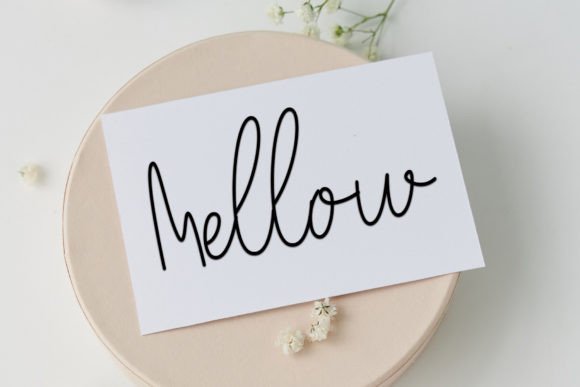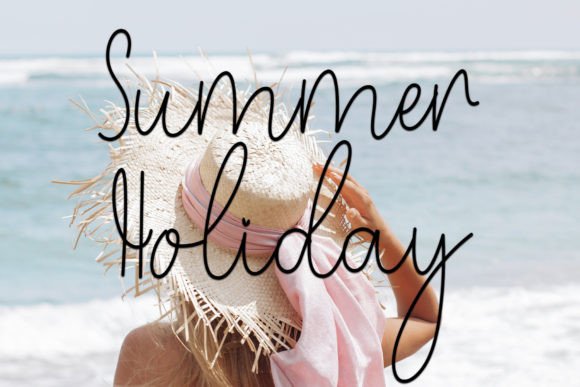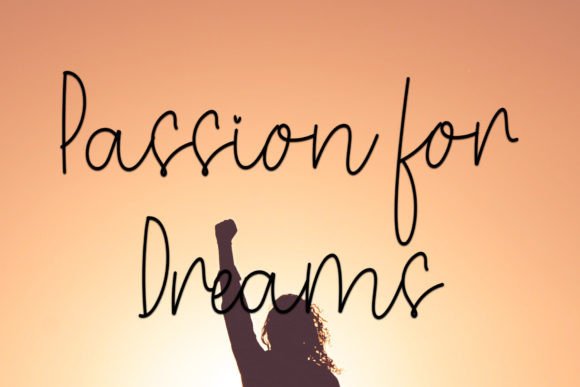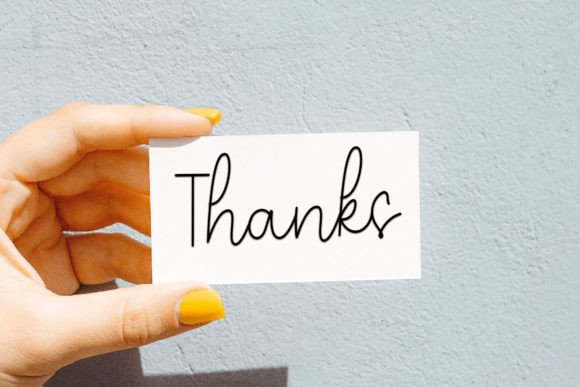
The Sweet Taste of Typography: Introducing Cupcake Font
Do you remember the excitement of creating your first design project? The thrill of brainstorming ideas, selecting colors, and choosing the perfect font to bring it all together? For designers, the right font can make all the difference between a project that’s just good and one that’s truly exceptional.
Enter the Cupcake Font, a stylish handwritten font that adds a touch of elegance and sophistication to any design. With its contemporary atmosphere and impeccable form, inspired by timeless classic calligraphy, this font is the perfect choice for designers looking to elevate their projects. Whether you’re working on a branding project, a wedding invitation, or a social media campaign, the Cupcake Font is sure to make your designs stand out.
Cupcake Font Key Features
- Unique Characteristics: Cupcake Font features a playful, cursive script with a mix of rounded and pointed letterforms, making it perfect for adding a touch of whimsy to designs.
- Font Style: Cupcake Font comes in Regular and Bold styles, allowing designers to choose the perfect weight for their project.
Cupcake Font Review
Cupcake Font is a delightful, playful font that’s perfect for adding a touch of whimsy to your designs. ✨ The rounded edges and soft curves make it an ideal choice for baking-related projects, children’s content, or any other theme that requires a lighthearted feel.
- ✨ Beautifully designed, with a clear and consistent style
- ✨ Great for creating a friendly and approachable atmosphere
- ✨ Highly customizable, with various font weights and styles available
- ⚠️ Limited language support, which may make it less suitable for international projects
- ⚠️ May not be the best choice for formal or professional content, due to its playful nature
- ⚠️ Some characters may not be fully compatible with certain operating systems or software
Overall, Cupcake Font is a lovely addition to any designer’s toolkit. While it may have some limitations, its unique charm and versatility make it a great choice for the right projects.
For the best results, use the Cupcake Font in conjunction with bold colors and playful graphics.
Alternatives to Cupcake Font
Lato is a modern sans-serif typeface designed by Łukasz Dziedzic. It’s suitable for body text, headings, and titles in digital products, branding, and advertising. Lato is more versatile and legible than Cupcake Font, making it a better choice for larger blocks of text. It also comes in multiple weights and styles, providing more design options.
Great Vibes is a script font designed by Handmade Font Foundry. It’s ideal for creating a playful, handwritten look in titles, quotes, and short paragraphs. While Cupcake Font is also a script font, Great Vibes has a more organic feel and is better suited for digital applications where legibility is crucial. Great Vibes is a good choice when you need to add a touch of personality to your design.
Playfair Display is a luxurious serif font designed by Claus Eggers Sørensen. It’s perfect for creating elegant, high-end titles, and headings in fashion, luxury, and fine arts contexts. Playfair Display is more formal and sophisticated than Cupcake Font, making it a better choice when you need to convey a sense of luxury and sophistication. It’s also available in multiple weights and styles.